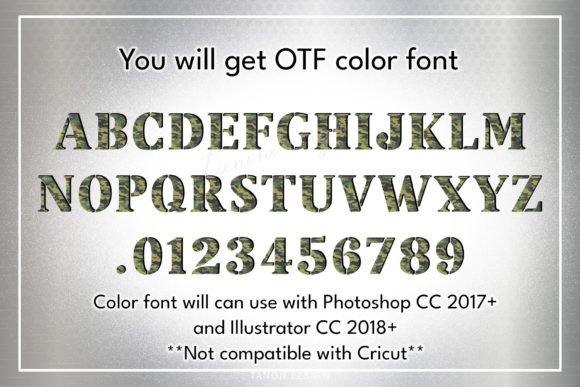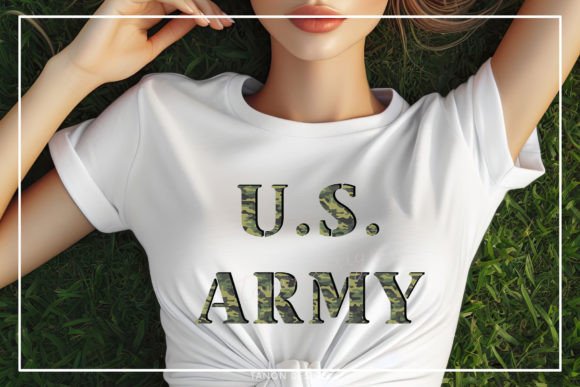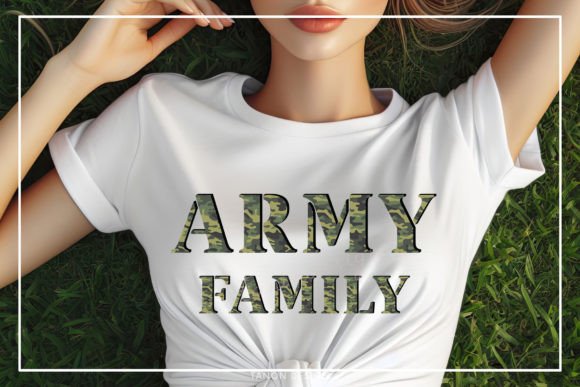
Discover the Ultimate Design Tool: Army Camouflage Font
Have you ever been in the middle of a design project, and suddenly, you just can’t seem to find the right font? I recall a particularly frustrating moment when I was working on a t-shirt design for a client’s military-themed event. The design required a font that would not only capture the essence of the military but also stand out in a crowd. That’s when I stumbled upon the “Army Camouflage” font, and it completely transformed my design.
First Impressions: A Beautiful Army Camouflage Color Font
The “Army Camouflage” font is exactly what it promises—a beautiful, army camouflage color font that can elevate any project design. Whether you’re working on t-shirt designs, mug designs, digital designs, crafts, cards, or any other project, this font is sure to impress. The black version of this font is compatible with Cricut Design Space and other cutting machines, making it a versatile tool for crafters and designers alike.
- ✨ Unique and eye-catching design that’s perfect for military-themed projects
- ✅ Easy to use and customize, even for beginners
Exploring OpenType Features: Glyphs and Stylistic Alternates
The Army Camouflage font comes with a range of OpenType features that can enhance your design. Here are a few tips on how to use glyphs and stylistic alternates:
- Glyphs: Use the glyph panel to access alternative characters, such as different letterforms or ornaments
- Stylistic Alternates: Use the stylistic alternates feature to switch between different font styles, such as bold or italic
The Designer Inspiration: A Backstory
The Army Camouflage font was designed with the military enthusiast in mind. The designer wanted to create a font that would capture the essence of military design while also being versatile and easy to use. The result is a font that’s perfect for designers, crafters, and creative hobbyists who want to add a touch of military flair to their projects.